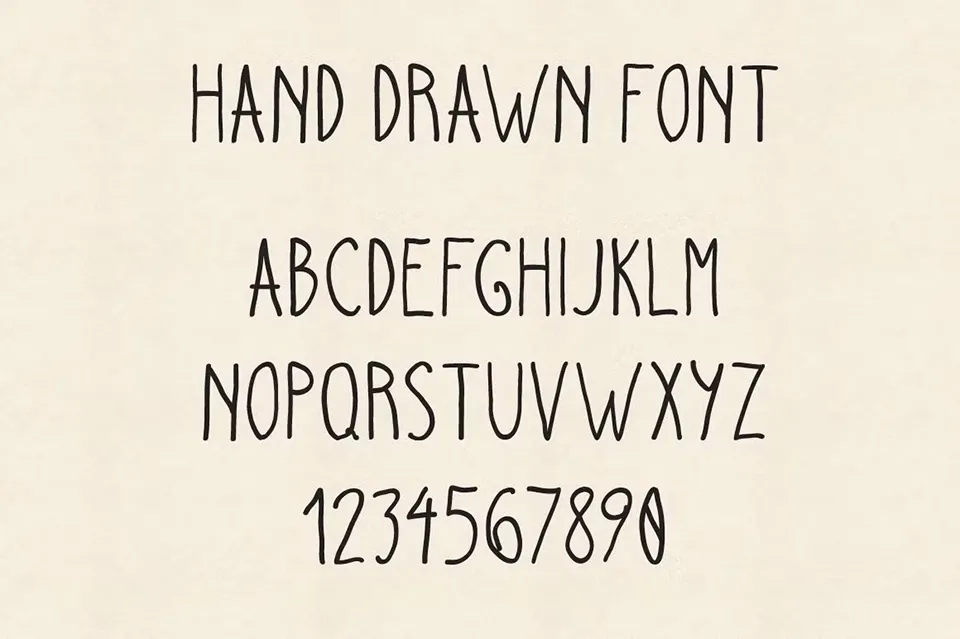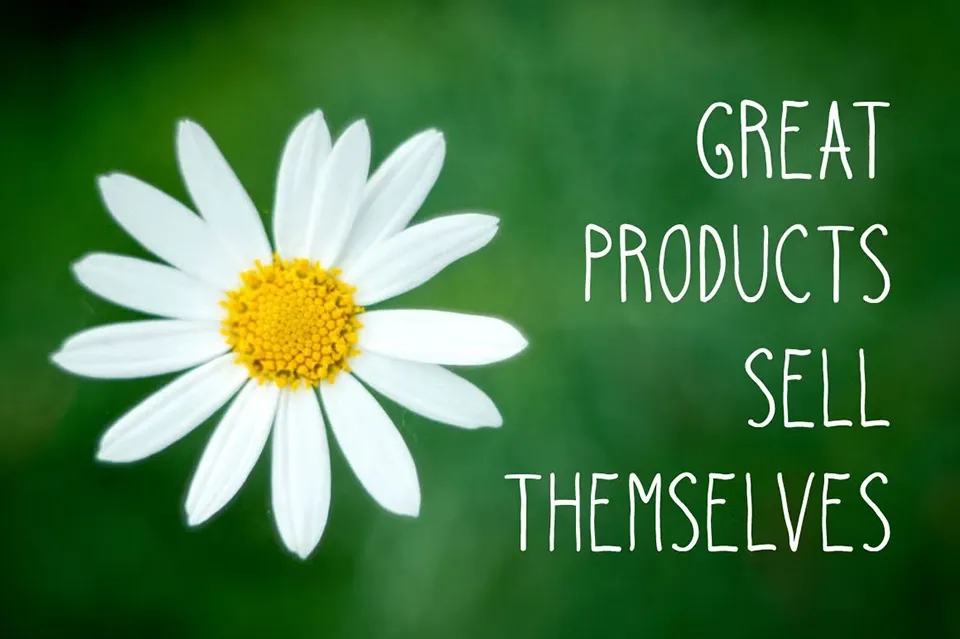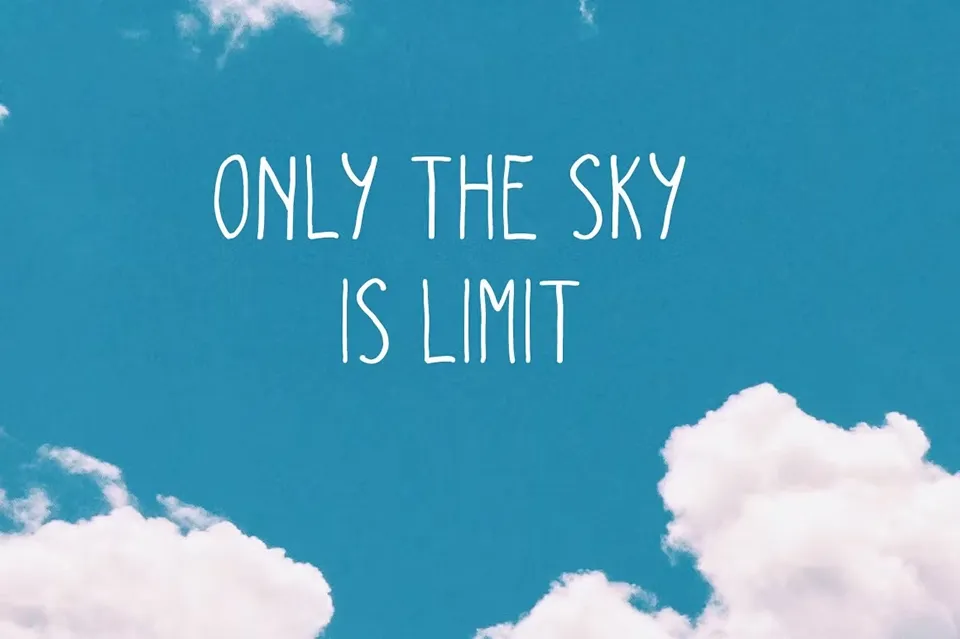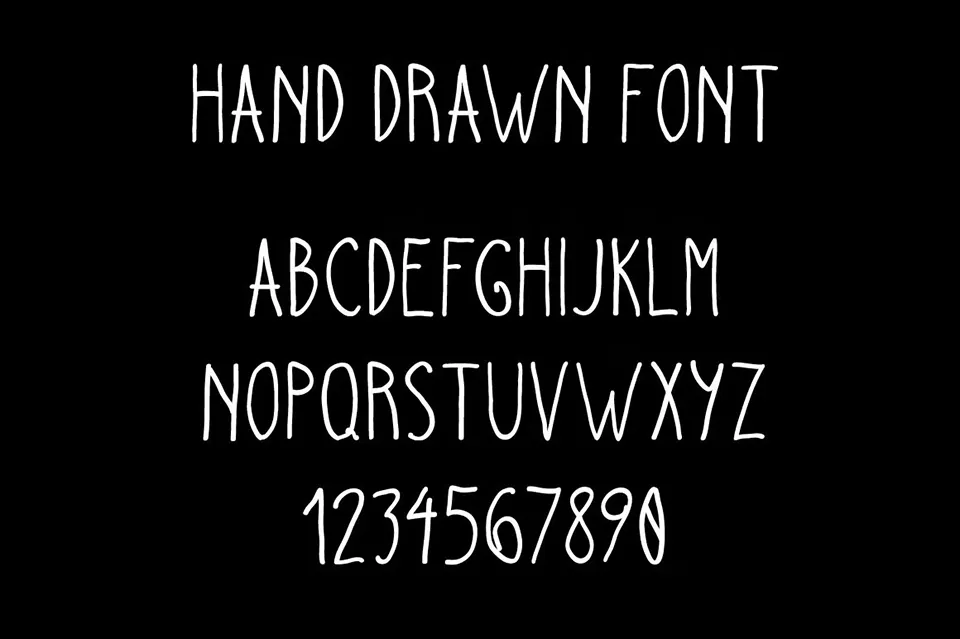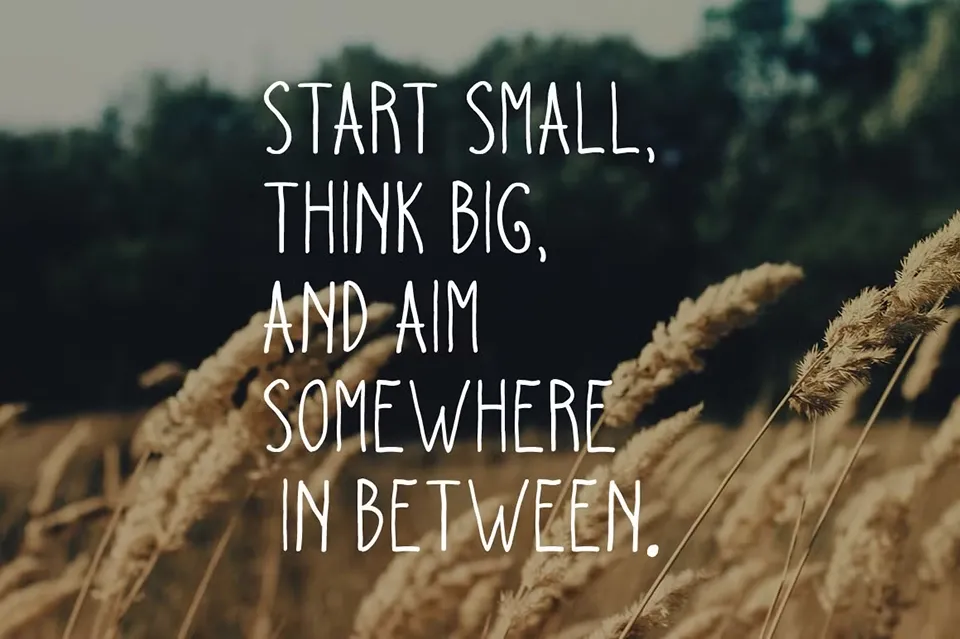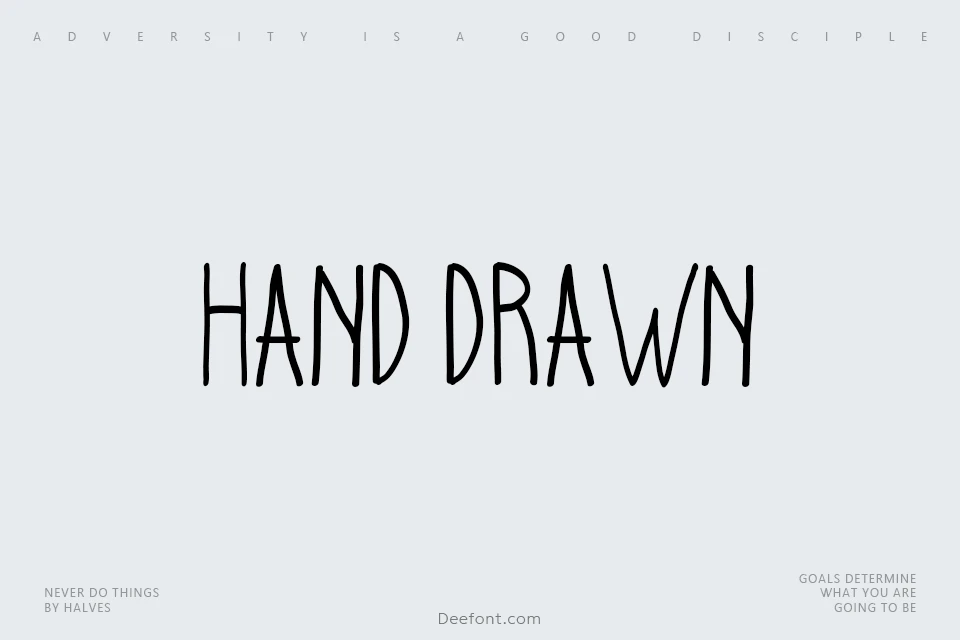
Hand Drawn Script Font
Hand Drawn Script Font is a playful and organic typeface that emulates the look and feel of authentic hand lettering. Its irregular strokes and casual flow add a personal, warm touch to any design, making it ideal for invitations, branding, packaging, and creative projects seeking a handcrafted aesthetic.